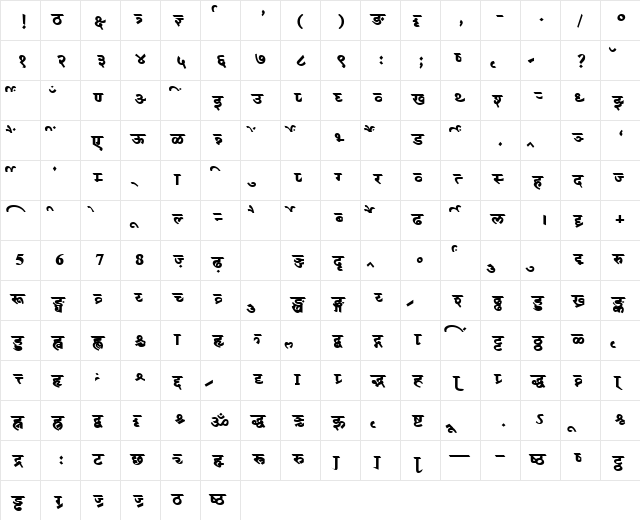
AkrutiDevBharani Bold
Design Context for AkrutiDevBharani Typeface
AkrutiDevBharani takes a measured approach to typography — its balanced proportions and neutral character make it a reliable workhorse for both digital and print work. The heavy weight commands attention and anchors typographic hierarchies.